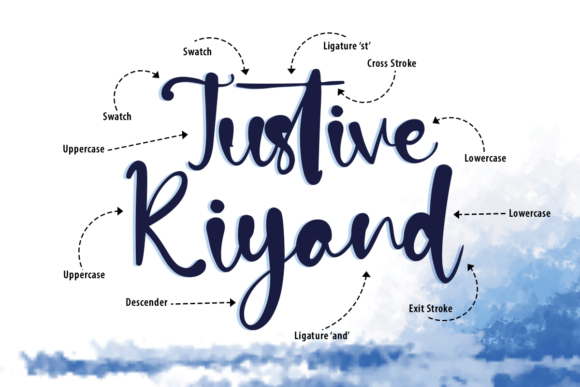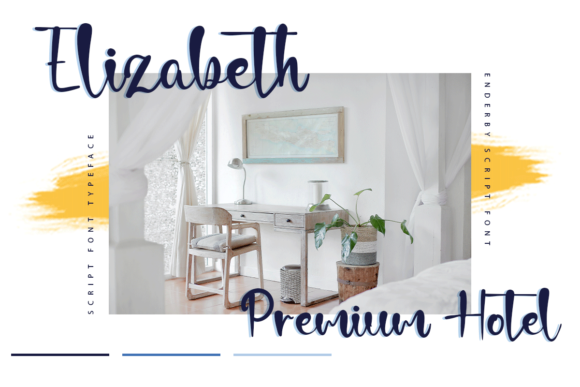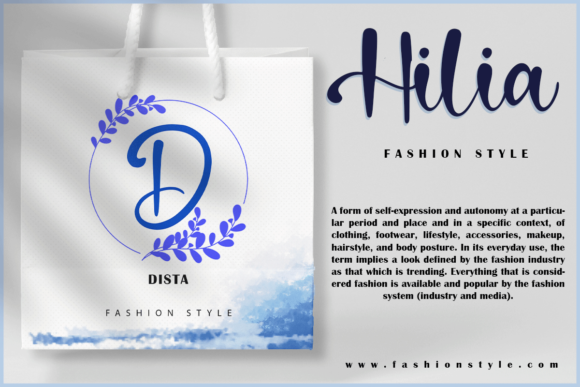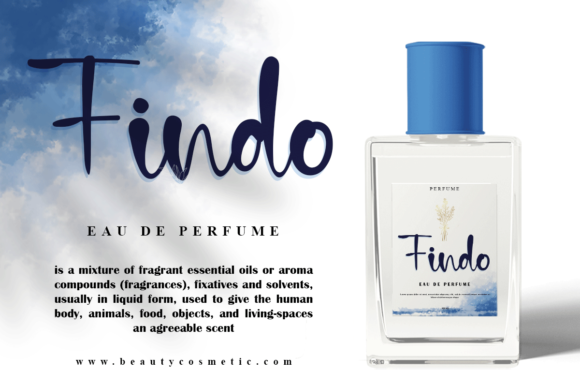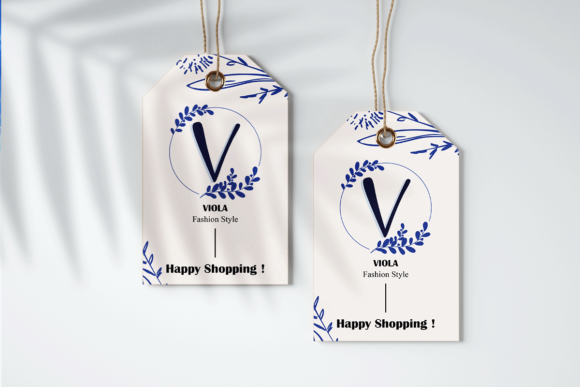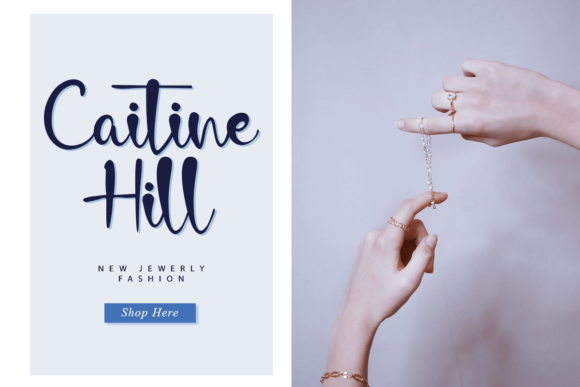
Introducing Enderby Font: The Perfect Addition to Your Creative Projects
Are you looking for a font that can add a touch of fun and informality to your designs? Look no further than Enderby Font. This trendy and stylish script font is perfect for a wide range of creative projects, from social media graphics to branding materials, and more. In this article, we’ll explore the features and benefits of Enderby Font, and show you how to make the most of this versatile typeface.
What is Enderby Font?
Enderby Font is a modern script font that is designed to add a touch of personality to your designs. Its flowing lines and curly letters make it perfect for creating eye-catching headlines, titles, and quotes. The font is highly legible, making it suitable for use in a variety of contexts, from digital media to print materials.
Key Features of Enderby Font
- Trendy and Stylish: Enderby Font is a modern script font that is sure to turn heads. Its unique and stylish design makes it perfect for creative projects that require a fun and informal touch.
- Highly Legible: Despite its curly and flowing lines, Enderby Font is highly legible, making it suitable for use in a variety of contexts.
- Versatile: Enderby Font can be used in a wide range of creative projects, from social media graphics to branding materials, and more.
Benefits of Using Enderby Font
So why should you choose Enderby Font for your creative projects? Here are just a few benefits of using this versatile typeface:
- Adds Personality: Enderby Font adds a touch of personality to your designs, making them stand out from the crowd.
- Enhances Creativity: The font’s unique and stylish design inspires creativity and imagination, making it perfect for projects that require a fun and informal touch.
- Improves Readability: Despite its curly and flowing lines, Enderby Font is highly legible, making it easy for readers to quickly scan and understand your content.
- Customizable: Enderby Font can be customized to fit your specific design needs, making it perfect for branding and marketing materials.
Creative Project Ideas Using Enderby Font
Enderby Font is perfect for a wide range of creative projects. Here are a few ideas to get you started:
- Social Media Graphics: Use Enderby Font to create eye-catching social media graphics that are sure to grab attention.
- Branding Materials: Use Enderby Font to create custom branding materials, such as logos, business cards, and brochures.
- Invitations: Use Enderby Font to create custom invitations for parties, weddings, and other special events.
- Posters: Use Enderby Font to create eye-catching posters for movies, concerts, and other events.
Enderby Font is a trendy and stylish script font that is perfect for adding a touch of fun and informality to your designs. With its highly legible design and versatile features, it’s perfect for a wide range of creative projects. Whether you’re a designer, craft, or DIY enthusiast, Enderby Font is sure to become a favorite in your toolkit.